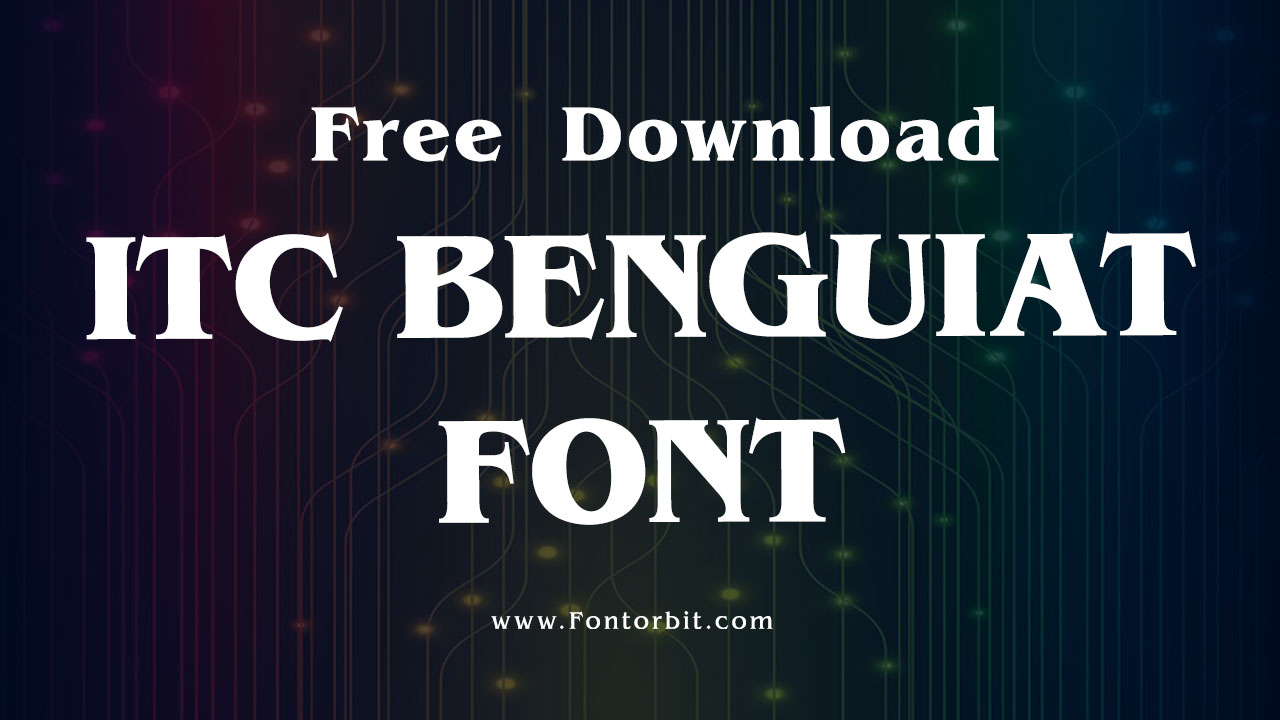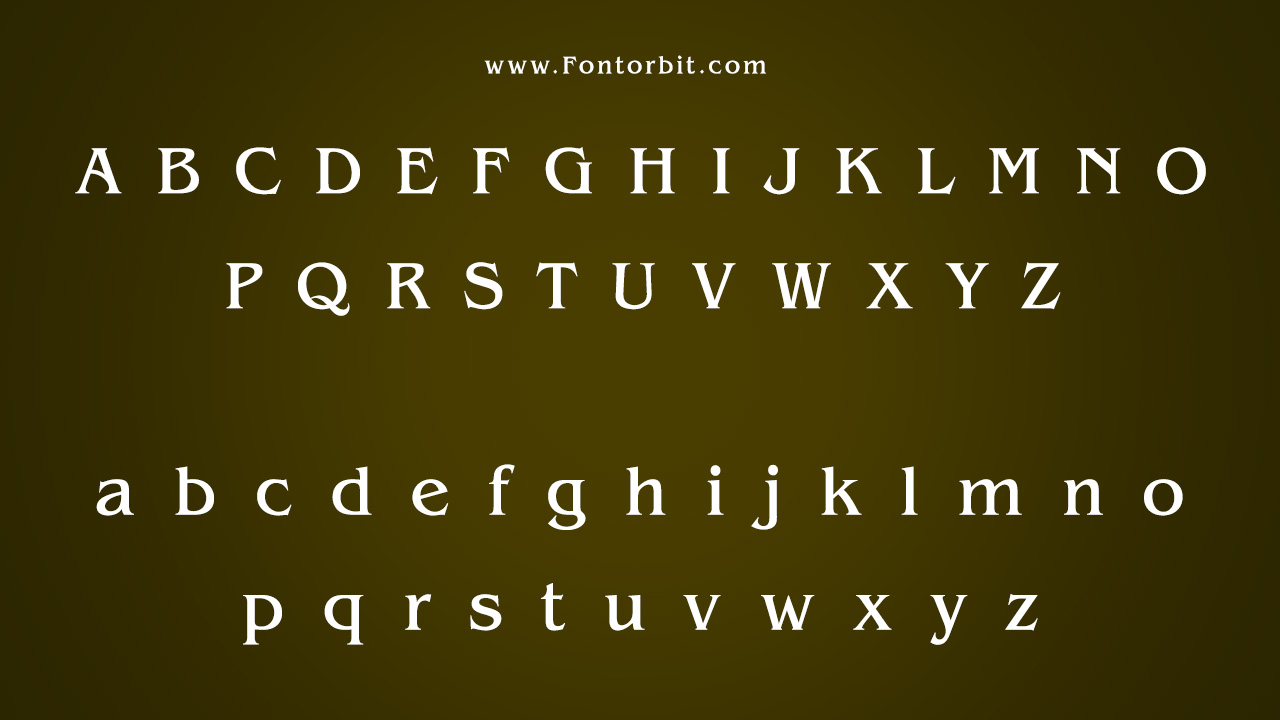
Ed Benguiat’s ITC Benguiat Font is an iconic serif typeface with a rich, decorative design. Originally released by the International Typeface Corporation (ITC) in 1977, ITC Benguiat stands out with its unique blend of high x-height, elegant curves, and artful details.
Though influenced by the Art Nouveau period, ITC Benguiat is not an academic revival, giving it a fresh and modern appeal that has been celebrated in various design circles. Available in OTF and TTF formats, ITC Benguiat is free for personal use.
The ITC Benguiat Font Family
- ITC Benguiat Bold
- ITC Benguiat Bold Italic
- ITC Benguiat Book
- ITC Benguiat Book Italic
- ITC Benguiat Medium
- ITC Benguiat Medium Italic
- ITC Benguiat Bold Condensed
- ITC Benguiat Bold Condensed Italic
- ITC Benguiat Book Condensed
- ITC Benguiat Book Italic Condensed
- ITC Benguiat Medium Condensed
ITC Benguiat Font is notable for its well-crafted uppercase and lowercase letters, numerals, punctuation, and a comprehensive set of special characters. It includes several weights and widths, offering designers the flexibility to create visually compelling projects. With its high x-height and narrow width, ITC Benguiat is especially suited for headlines, logos, and decorative text.
ITC Benguiat Font’s distinctive, vintage-inspired design makes it ideal for a variety of creative projects. Its ornate serifs and flowing lines add a touch of elegance to every application, making it perfect for:
- Artwork
- Banners
- Decoration
- Assignments
- Presentations
- Layouts
- T-shirt designs
ITC Benguiat Font Found In Use
ITC Benguiat has been featured in numerous high-profile projects, demonstrating its versatility and enduring appeal. Movie Posters: Famously used in the title design for the TV series Stranger Things, giving it a nostalgic, yet eerie feel.
ITC Benguiat Font is a masterpiece of decorative serif design, offering a blend of elegance, versatility, and timeless appeal. Its extensive set of weights and widths make it a valuable tool for any designer’s arsenal, particularly for projects that require a vintage or classic touch. Pair ITC Benguiat with a complementary serif or sans-serif font for a well-rounded and harmonious design approach.
1.How To Use ITC Benguiat Font For Branding?
Utilize ITC Benguiat’s distinctive serif style for branding elements like logos, business cards, and promotional materials to convey sophistication and a touch of nostalgia.
2.How To Customize The ITC Benguiat Font For A Unique Look?
Use design software like Adobe Illustrator or FontLab to modify the font’s features, adjust kerning, or create custom ligatures for a unique, personalized look.
3.How To Create A Logo Using ITC Benguiat Font?
Incorporate ITC Benguiat into your logo design by pairing it with clean, modern fonts or icons that complement its decorative nature. Use vector design software to fine-tune the placement and styling of the text.
4.What Are The Best Design Projects For ITC Benguiat Font?
ITC Benguiat excels in high-visibility projects such as headlines, book covers, posters, and branding materials where a touch of elegance and vintage style is desired.